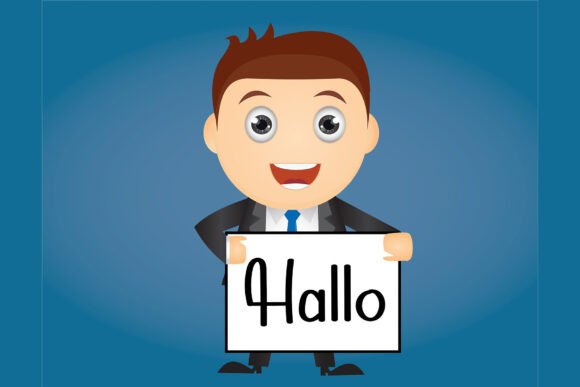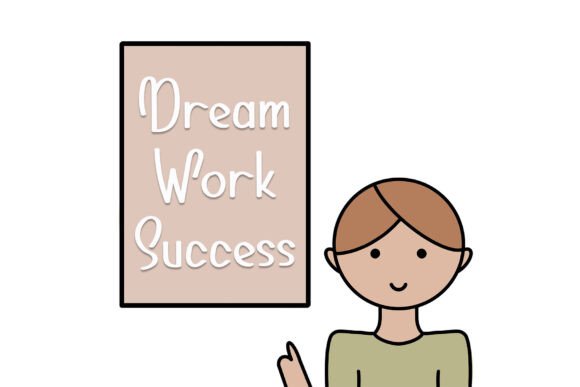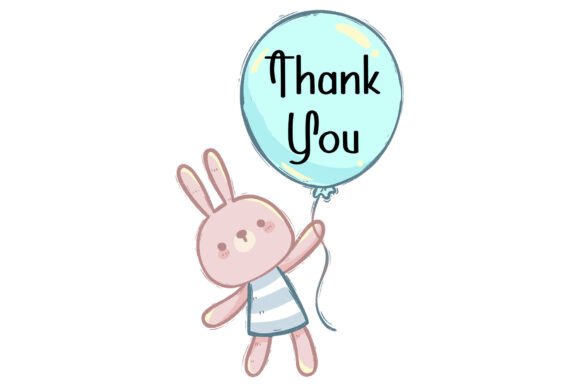
Introducing Hehalf Font: Elevate Your Designs with Elegance and Sophistication
In the world of design, fonts play a crucial role in conveying the tone and personality of a project. Whether you’re working on a wedding invitation, a business card, or a billboard, the right font can make all the difference. If you’re looking for a unique and elegant font that adds a touch of sophistication to your designs, look no further than Hehalf Font. In this article, we’ll explore the features and benefits of Hehalf Font, and why it’s a must-have for designers and crafters.
A Unique and Elegant Font
Hehalf Font is a stunning script font that exudes elegance and sophistication. Its unique and varied baseline gives it a natural, hand-made touch that sets it apart from other fonts. This font is perfect for designs that require a personal and human touch, such as wedding invitations, greeting cards, and business cards. With Hehalf Font, you can add a touch of whimsy and romance to your designs, making them truly unforgettable.
One of the best things about Hehalf Font is its versatility. It can be used for a wide range of design projects, from logos and billboards to social media graphics and website headers. Its elegant and sophisticated look makes it perfect for luxury brands, while its playful and whimsical touch makes it suitable for creative and artistic projects. Whether you’re working on a personal or commercial project, Hehalf Font is sure to impress.
Hehalf Font is PUA (Private Use Area) encoded, which means that you can access all glyphs and swashes with ease. This feature makes it easy to customize your designs and add your own personal touch. With PUA encoding, you can access a wide range of alternative characters, ligatures, and swashes, giving you endless possibilities for creative expression.
- Unique and elegant design: Hehalf Font features a unique and varied baseline that gives it a natural, hand-made touch.
- Versatile: Suitable for a wide range of design projects, from logos and billboards to social media graphics and website headers.
- PUA encoded: Easy access to all glyphs and swashes for customization and creative expression.
- Handwritten touch: Adds a personal and human touch to your designs, making them truly unforgettable.
- Spectacular creations: Hehalf Font is designed to create spectacular creations that will make your ideas look more real.
Hehalf Font is a must-have for designers and crafters who want to elevate their designs with elegance and sophistication. Whether you’re working on a personal or commercial project, this font is sure to impress. With its unique and elegant design, versatility, and PUA encoding, Hehalf Font is the perfect addition to your font library.
In conclusion, Hehalf Font is a stunning script font that offers a unique and elegant touch to your designs. Its versatility, PUA encoding, and handwritten touch make it perfect for a wide range of design projects. Whether you’re a designer or crafter, Hehalf Font is a must-have font that will elevate your designs to the next level. So why wait? Get your hands on Hehalf Font today and start creating spectacular designs that will leave a lasting impression.